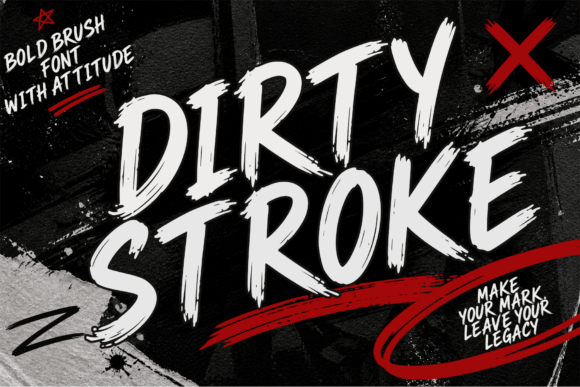
The Power of a Single Brushstroke
Have you ever felt a rush of creative energy as you pick up a paintbrush and start to bring your vision to life? The strokes flow effortlessly, and before you know it, a beautiful, vibrant image begins to take shape. This is the kind of raw, unbridled energy that the Dirty Stroke Font embodies.
This bold, hand-drawn font is more than just a typographic choice – it’s a statement piece that demands attention. Born out of rough, textured strokes and gifted with additional swash attributes, the Dirty Stroke Font exudes a raw, edgy vibe that’s perfect for designs that need a forceful visual impact. Whether you’re a seasoned designer or just starting out, this font offers the ultimate versatility and simplicity to create stunning visuals that leave a lasting impression.
Dirty Stroke Font Key Features
- Unique Characteristics: The Dirty Stroke Font features a unique, hand-drawn style with bold lines and rough textures, adding an artistic touch to designs.
Dirty Stroke Font Review
As a designer, I was excited to dive into the Dirty Stroke Font, and I’m happy to share my honest review with you. ✨ First of all, I love the unique and edgy vibe this font brings to the table. The irregular strokes and imperfections give it a hand-drawn feel that’s both authentic and captivating.
One of the things that works well is the font’s versatility. It can be used for a wide range of projects, from graffiti-inspired art to fashion and lifestyle designs. The font also comes in various weights, making it easy to create visually appealing typography.
- Unique and edgy vibe ✨
- Hand-drawn feel
- Versatility in use
- Multiple weights available
However, there are a few limitations to consider ⚠️. The font can be quite difficult to read at smaller sizes, and the irregular strokes can sometimes make it hard to achieve consistency in design.
Limitsations:
- Difficult to read at smaller sizes ⚠️
- Irregular strokes can be challenging to work with
Overall, I think the Dirty Stroke Font is a great addition to any designer’s toolkit. While it may have its limitations, its unique style and versatility make it a standout choice for those looking to add some edge to their designs.
The Dirty Stroke Font is ideal for:
- Creating eye-catching headlines and titles.
- Designing distressed or vintage-inspired graphics.
- Adding a touch of whimsy or personality to your text.